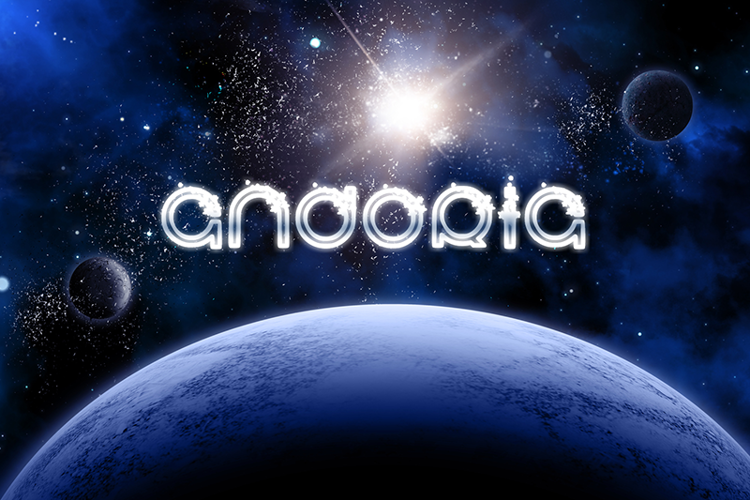
Andoria Font
About Andoria Font
It is a modern, futuristic, minimal, and clean font featuring uppercase multilingual letters, numbers, punctuation, and alternate characters. The font includes English uppercase letters, basic punctuation, and numbers.